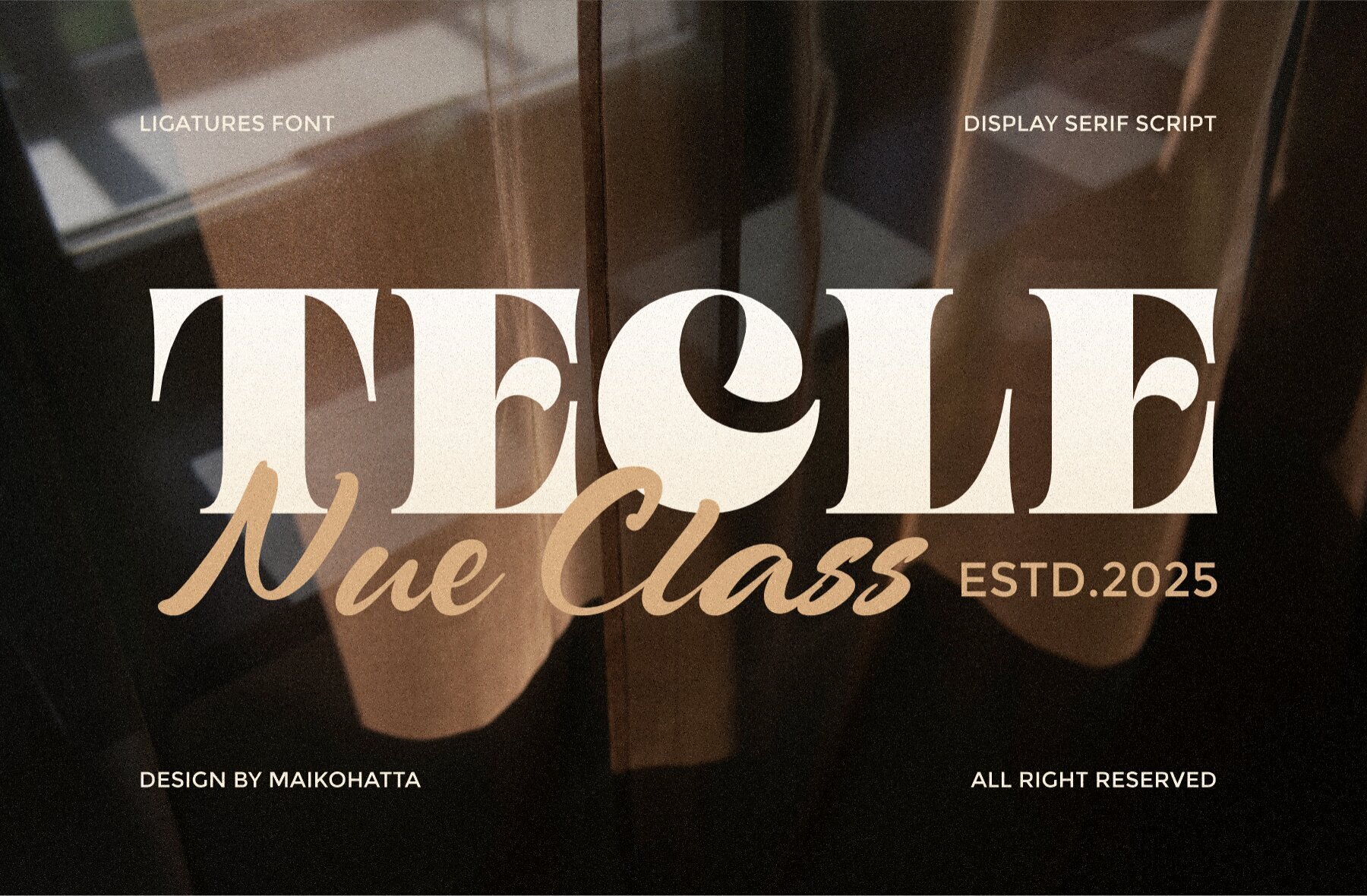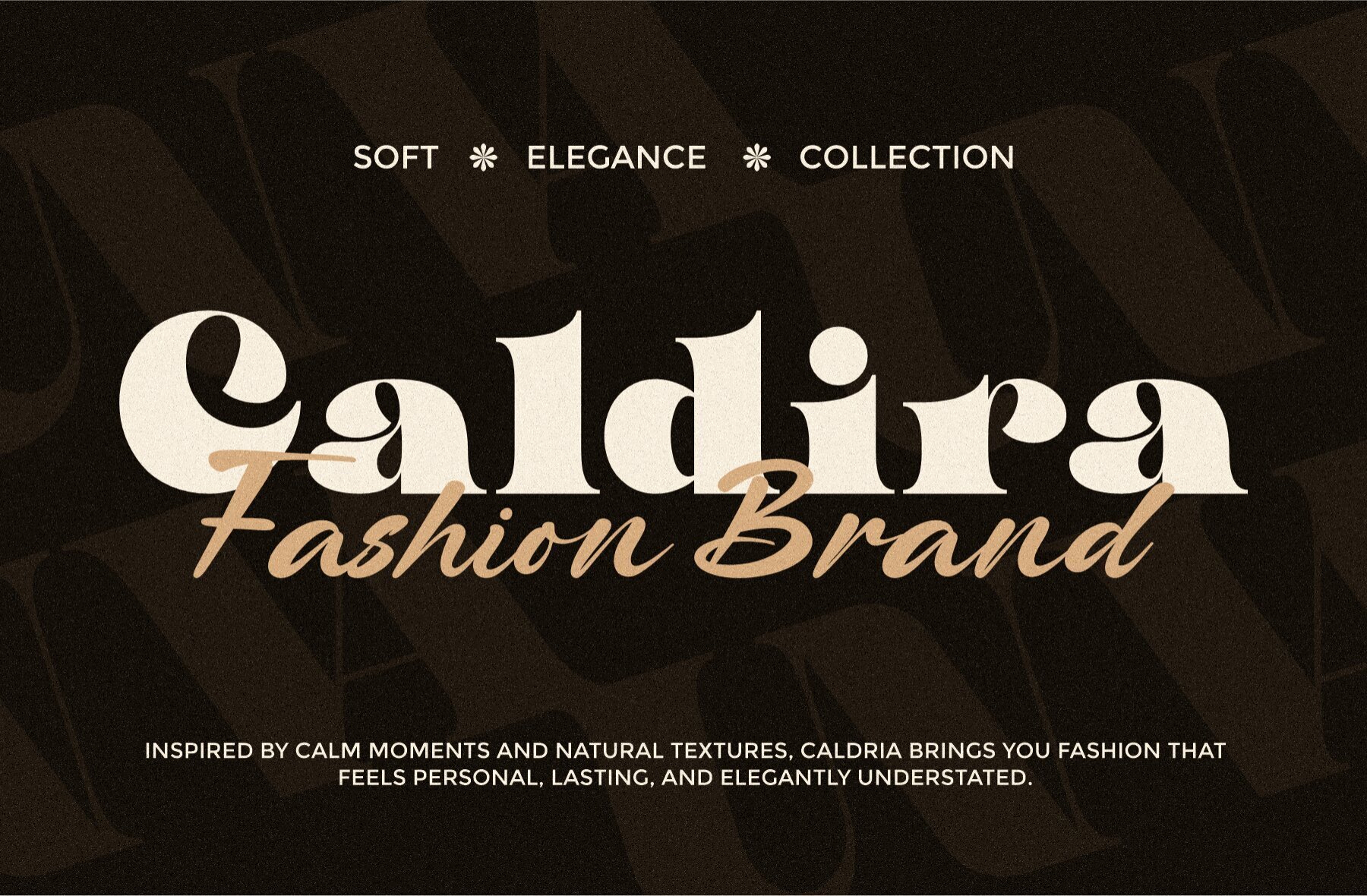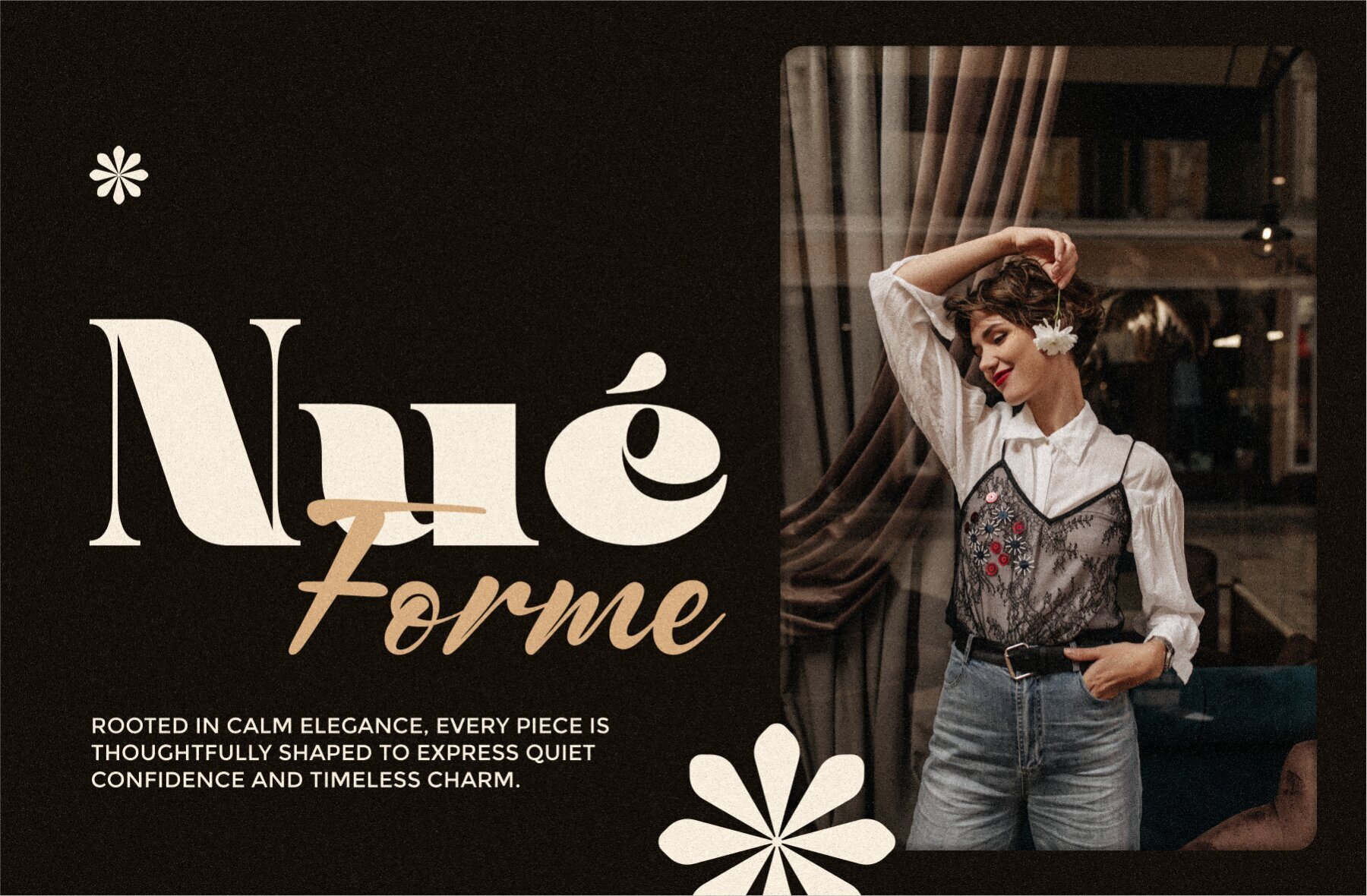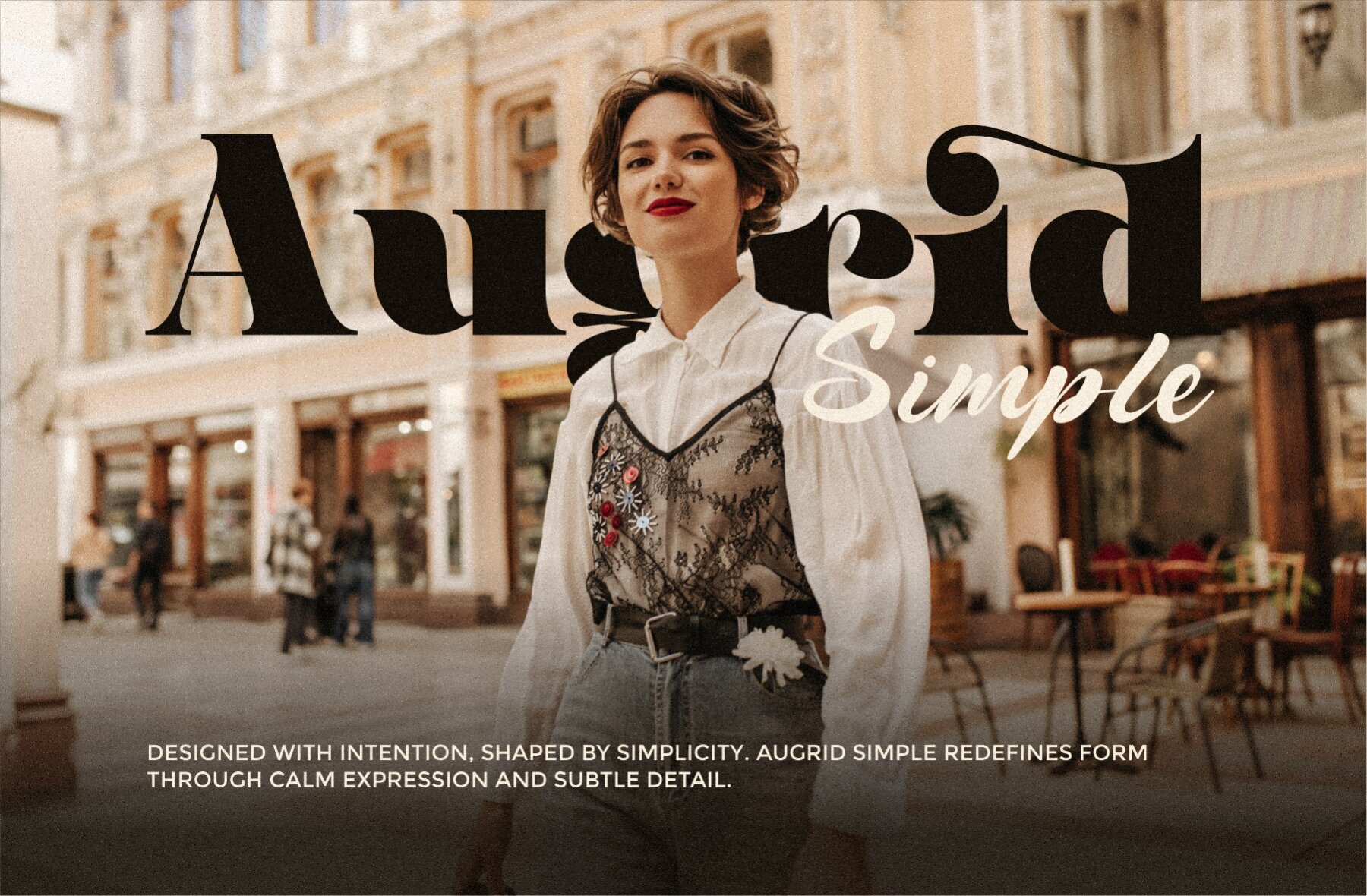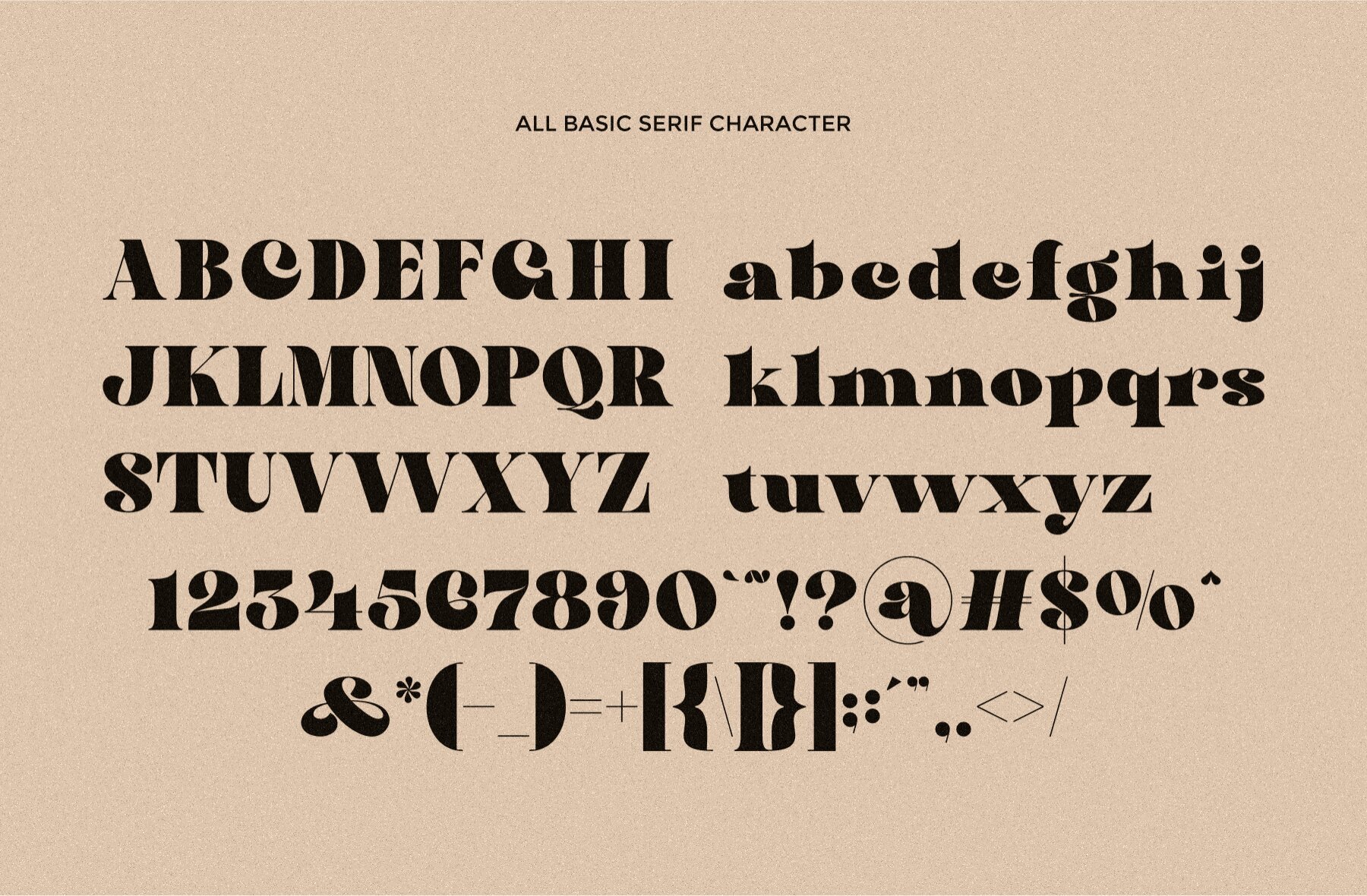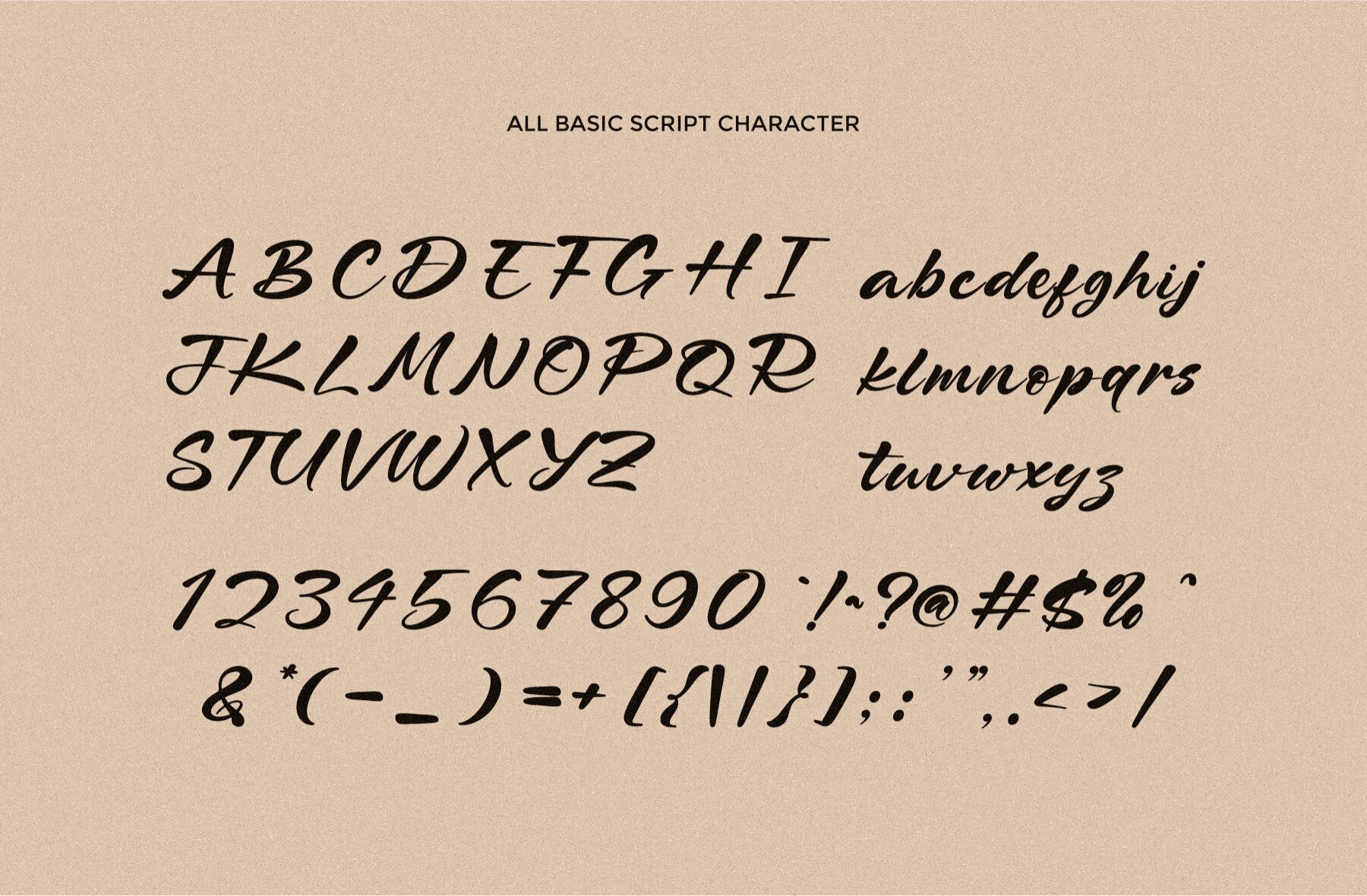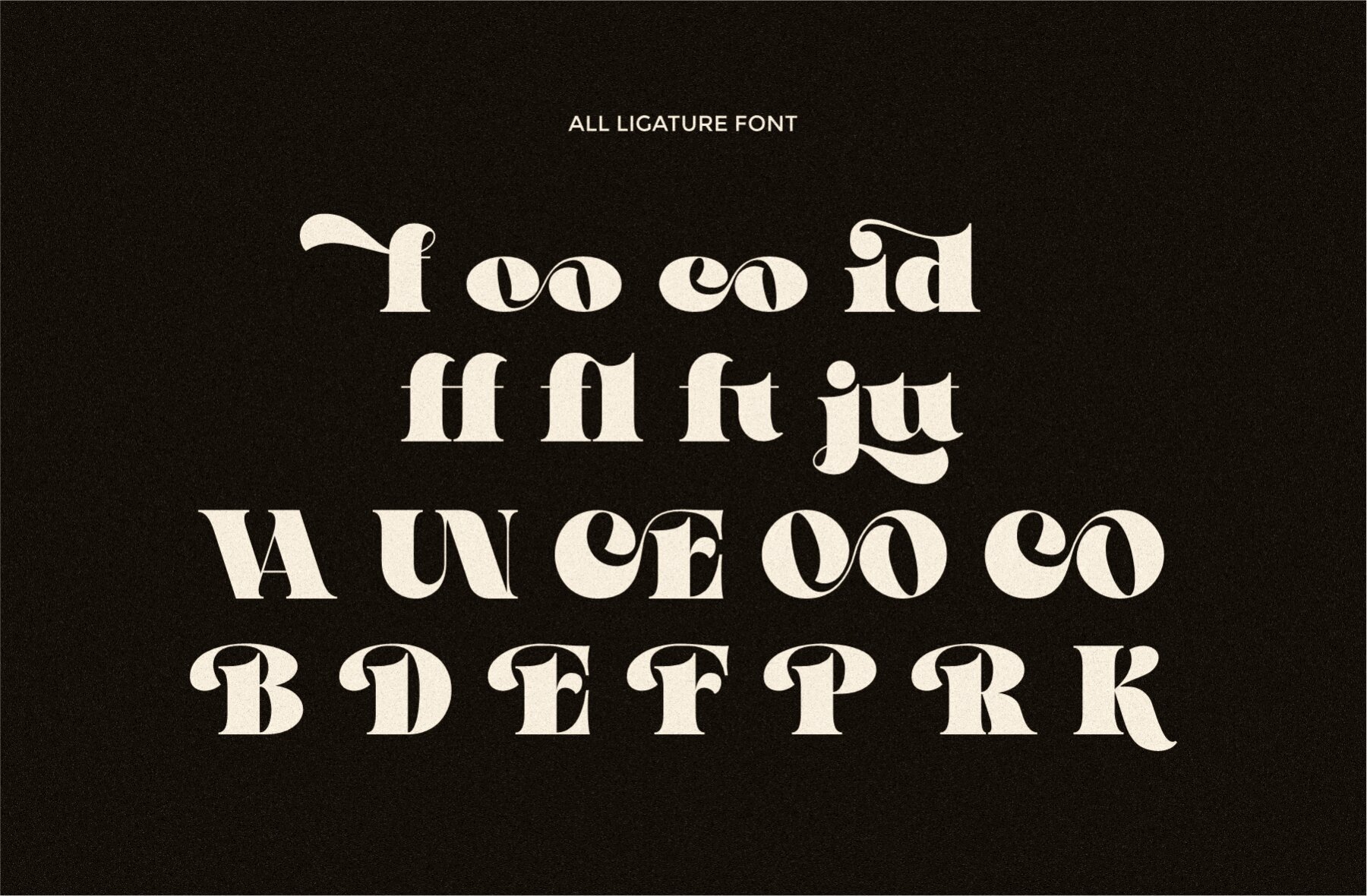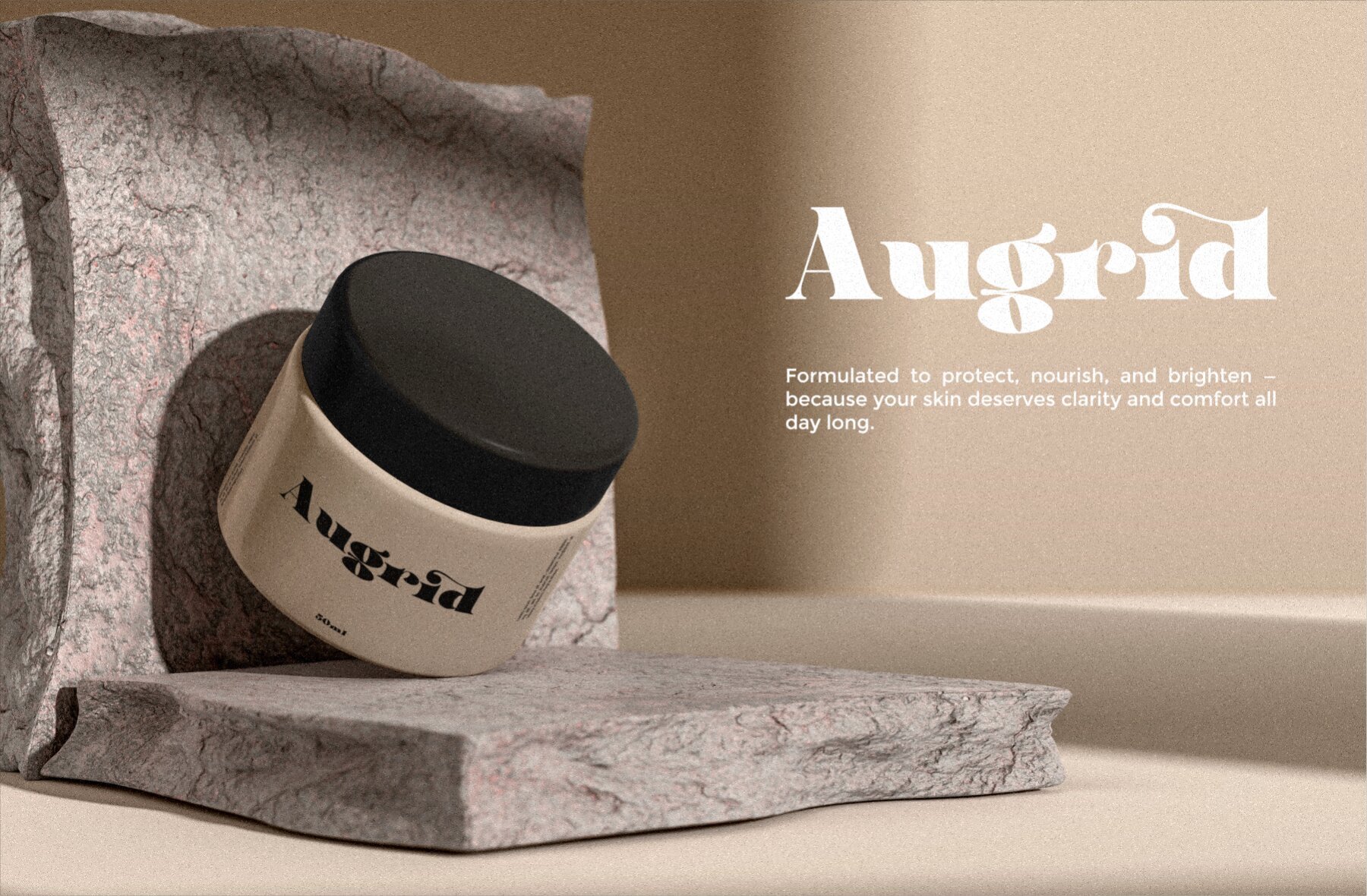
Tecle Font
Tecle is a unique typeface collection that marries the elegance of Serif with the fluidity of Script, offering two distinct styles. Each style is imbued with its own character and charm, designed to meet diverse design needs. The Tecle Serif is a contemporary font characterized by high contrast and sharp details. Its classic charm fits seamlessly into both modern and traditional projects, providing a bold, clean aesthetic that stands out elegantly. With Tecle Script, you find a smooth, flowing typeface that captures the essence of authentic handwriting. Its natural ligatures enhance its accessible, personal touch, making it a perfect choice for projects requiring a handcrafted feel.Tecle Typeface: Versatile Serif and Script Styles
Tecle Serif
Tecle Script